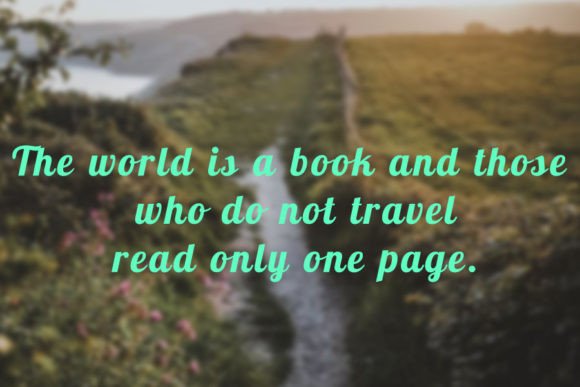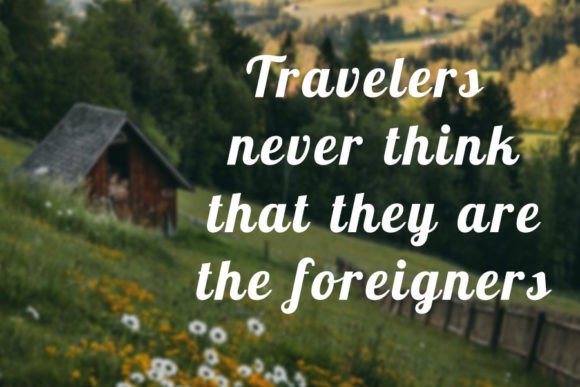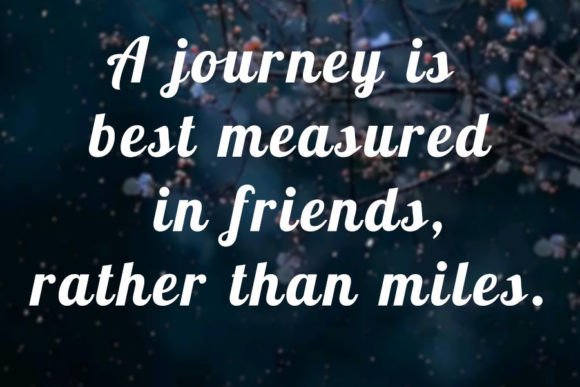
Introduction to Pippop Font Font
Fonts play a crucial role in design, and the Pippop Font font is a typeface that brings both character and versatility to any project. Whether you’re working on a branding project, a website, or a print design, the Pippop Font font offers a unique style that can elevate your work.
Pippop is a bold, eye-catching font designed for use in headings, titles, and other short text blocks.
It is characterized by unique and playful letterforms and exaggerated details Use this font to add visual interest and impact to designs.
Key Features of Pippop Font Font
Why Choose Pippop Font Font?
The Pippop Font font is more than just a typeface – it’s a design tool that helps you communicate your message with style and clarity. Its unique character set and versatile design make it suitable for a wide range of applications, from elegant invitations to bold headlines.
With its carefully crafted letterforms and balanced proportions, the Pippop Font font ensures readability and visual appeal across all mediums.
What makes Pippop Font font special?
The Pippop Font font stands out with its unique design, exceptional readability, and versatility across various design applications.